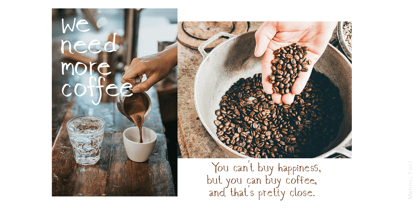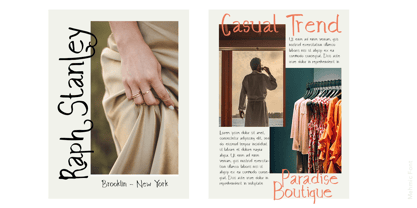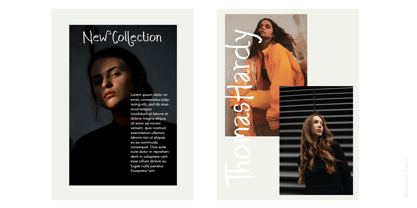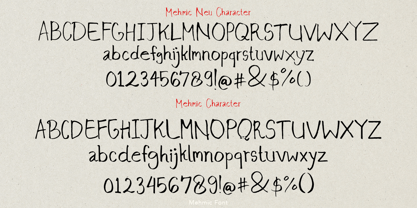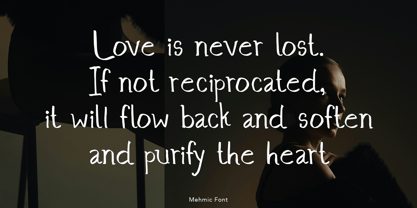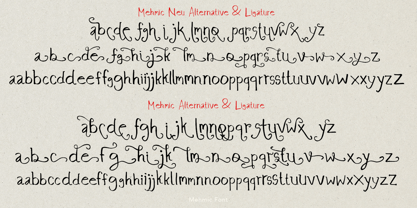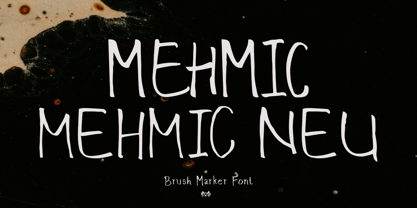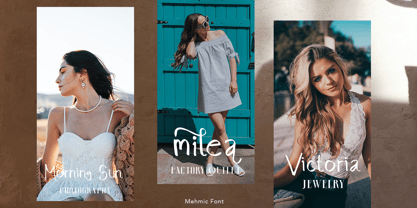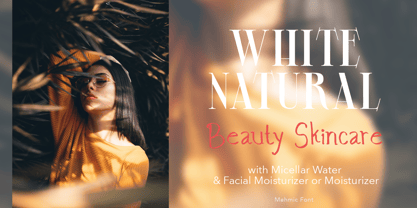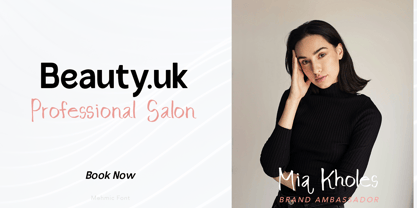
Mehmic
The Mehmic Font Family was designed by madededuk and published by madeDeduk. Mehmic contains 2 styles and family package options. More about this family
Introduce Mehmic and Mehmic Neu is a brush marker handwritten font to give an incredible impression for all your project design come with a lot ligatures and Alternative to make everything look realistic handmade handwritten.